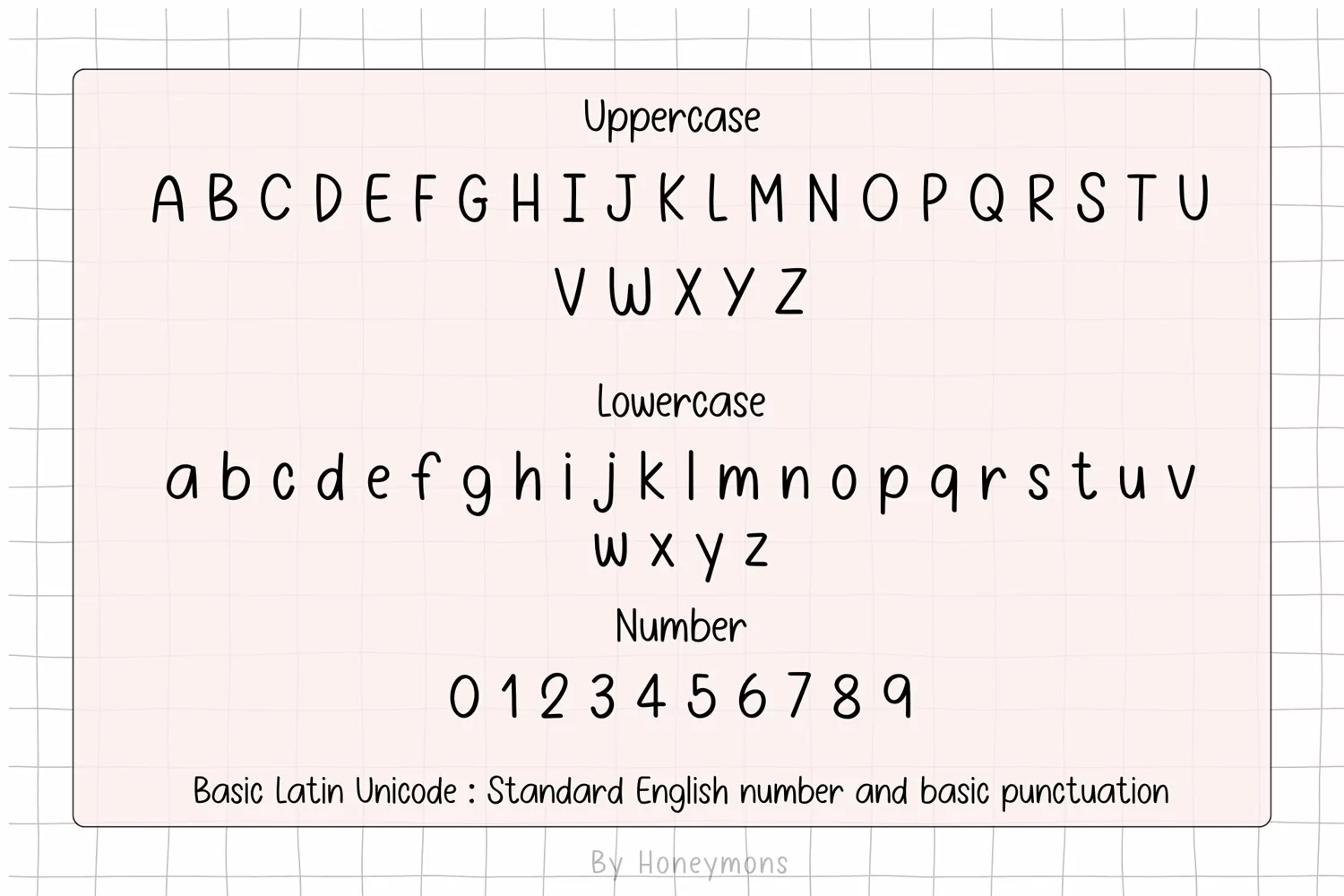
Friday Cursive Handwriting Font Neat Minimal Style Typography Smooth and Clean. Cursive handwriting font neat minimal style, ideal for clean and elegant designs. A perfect script font for modern typography and professional branding.